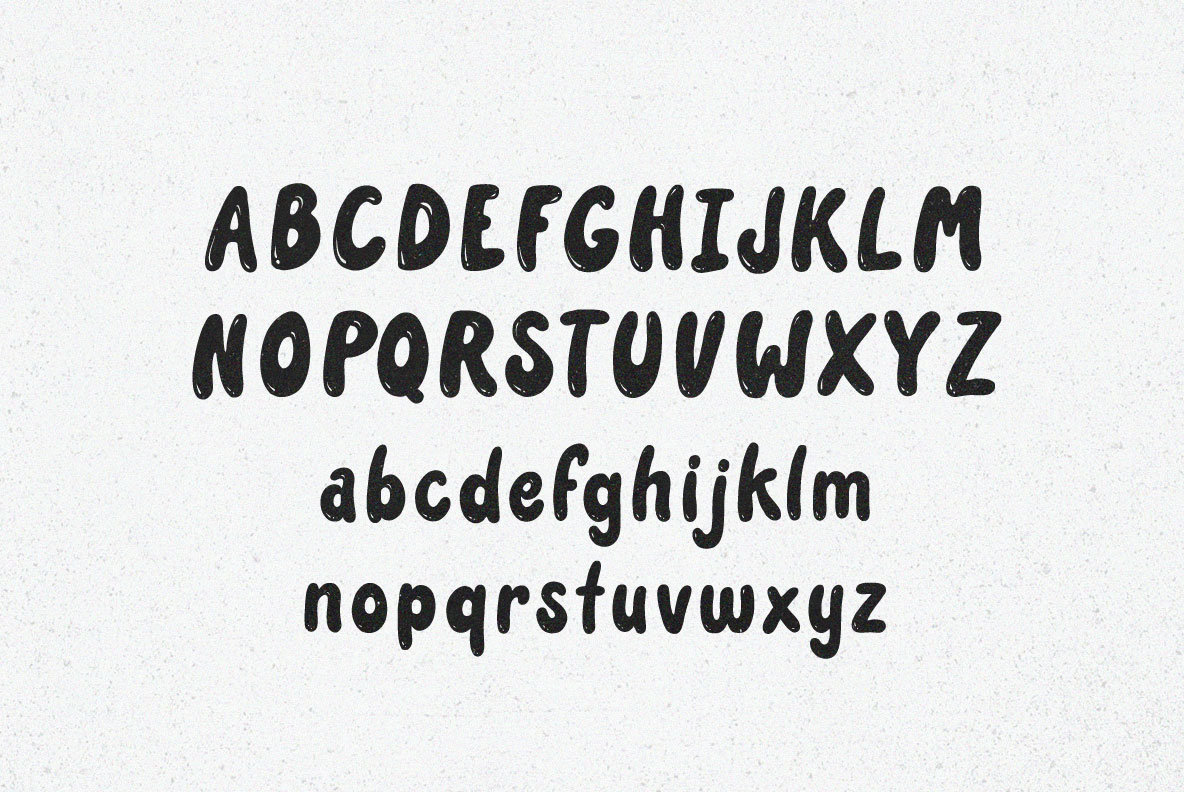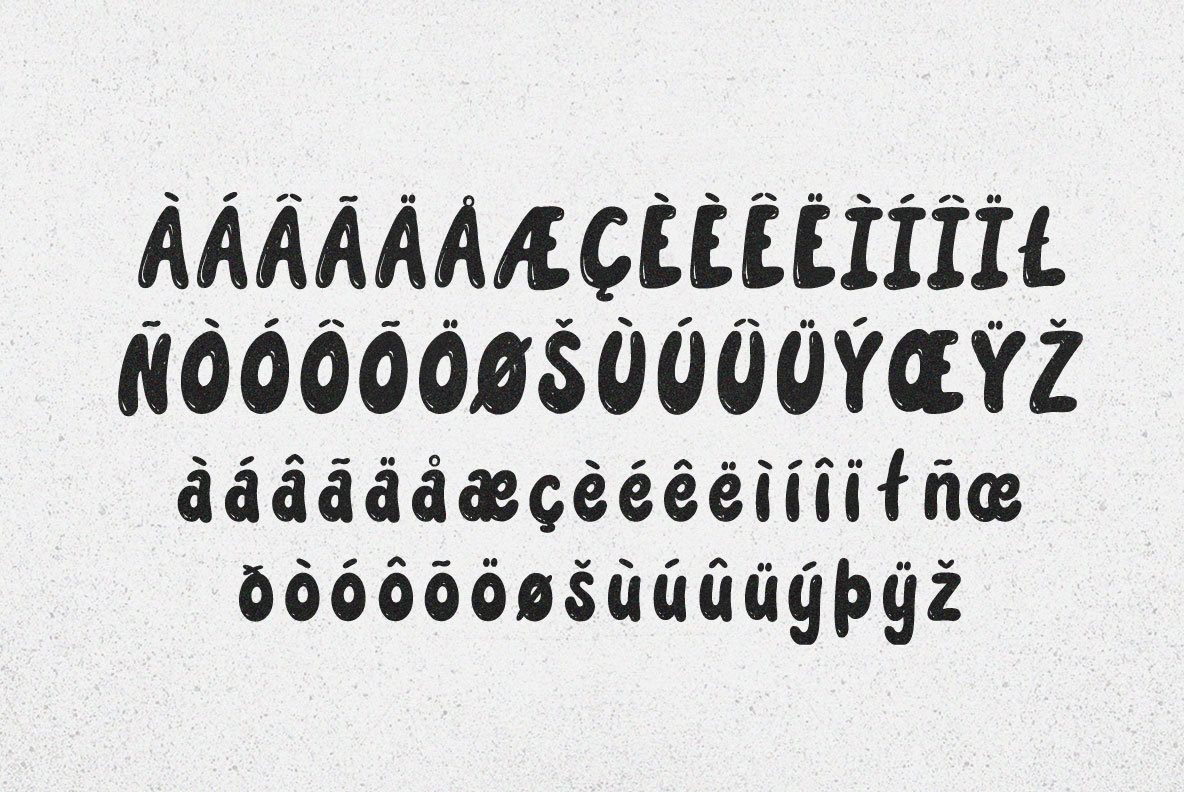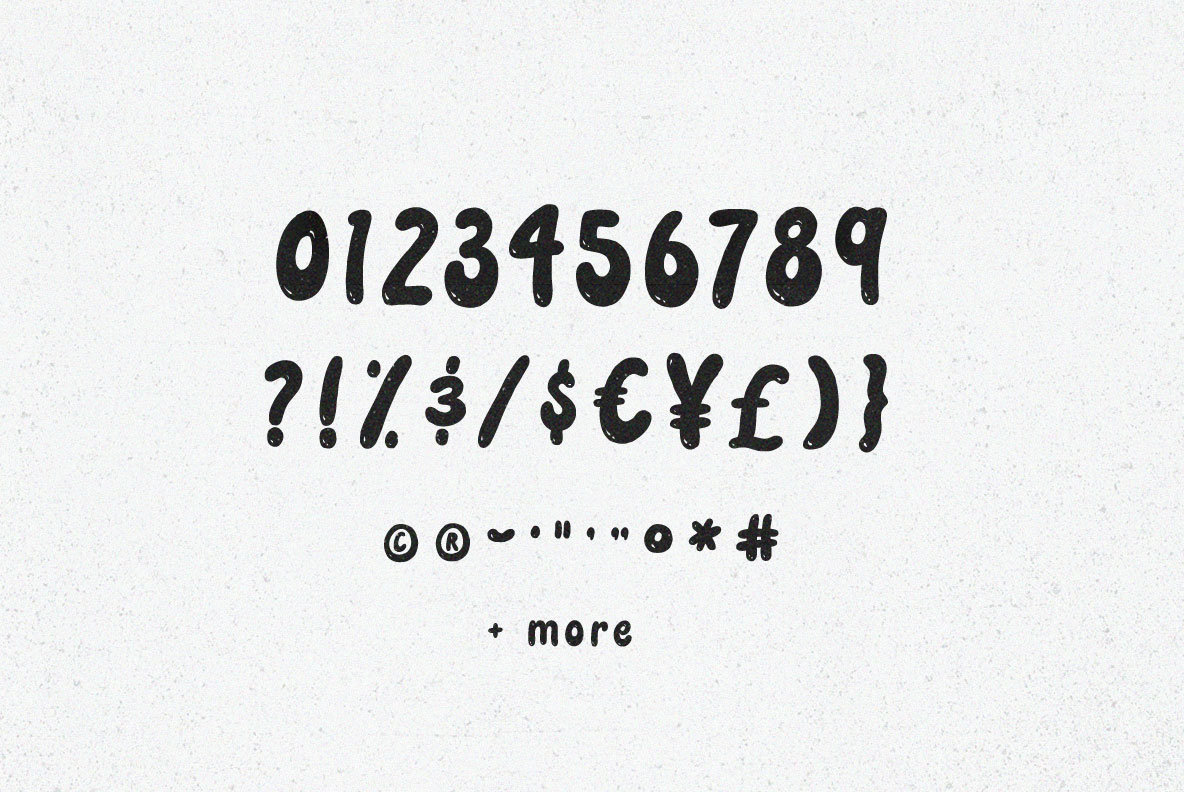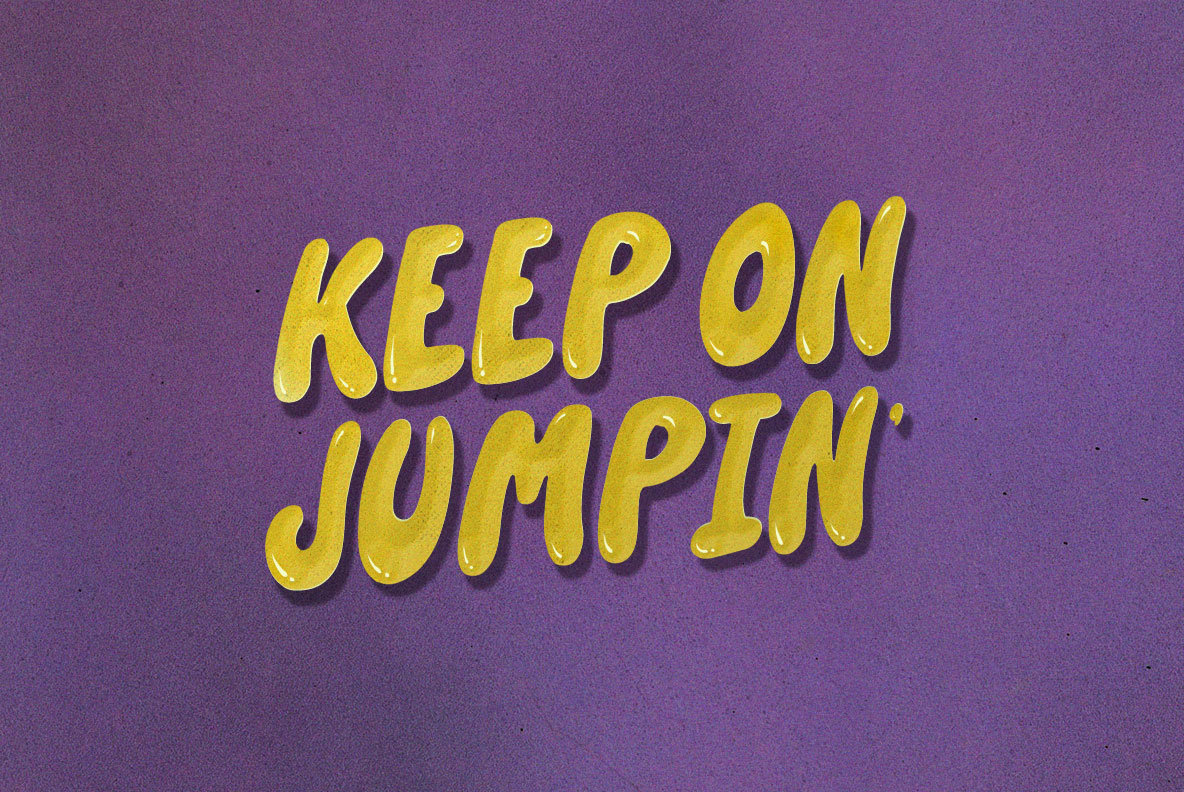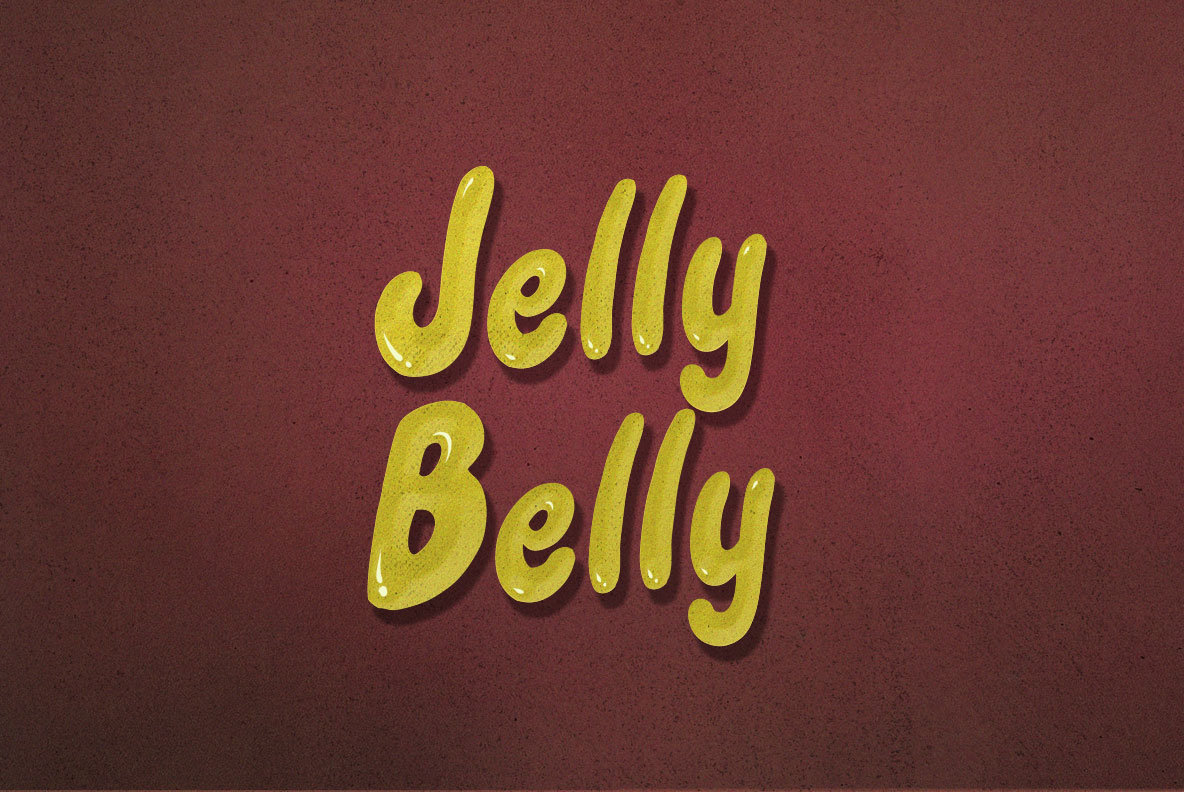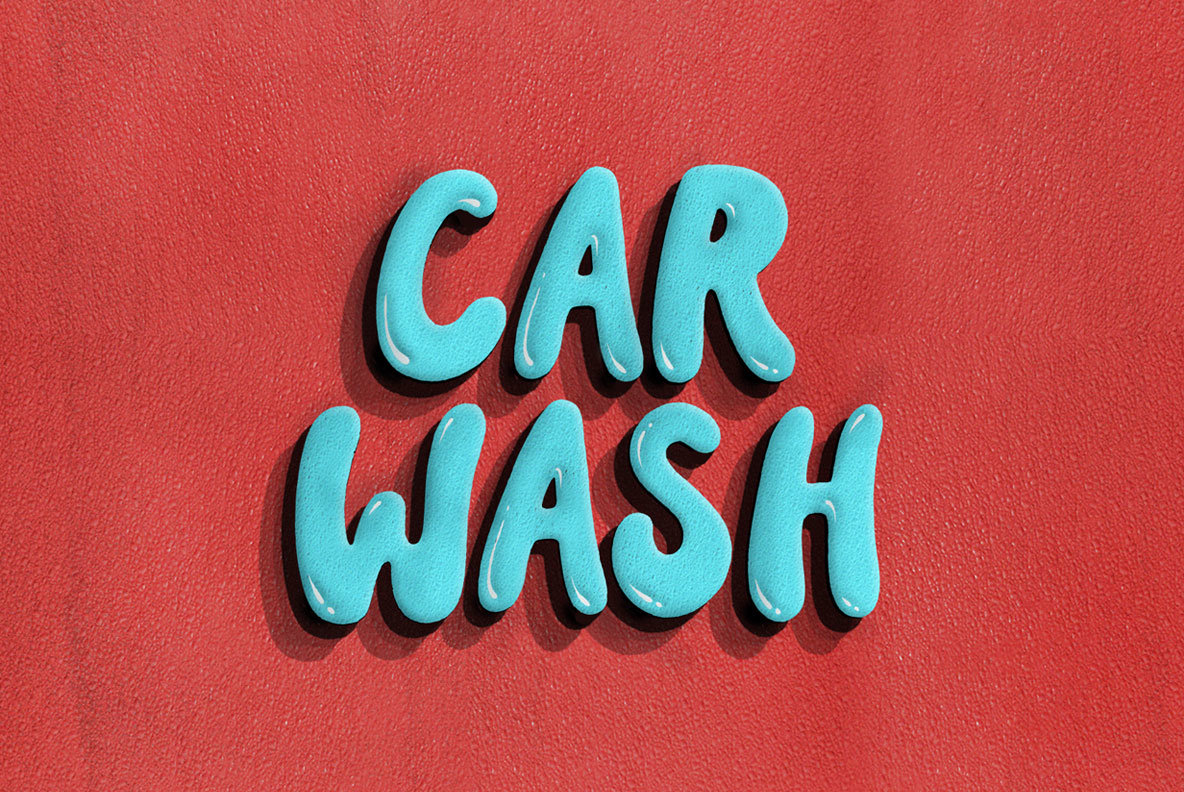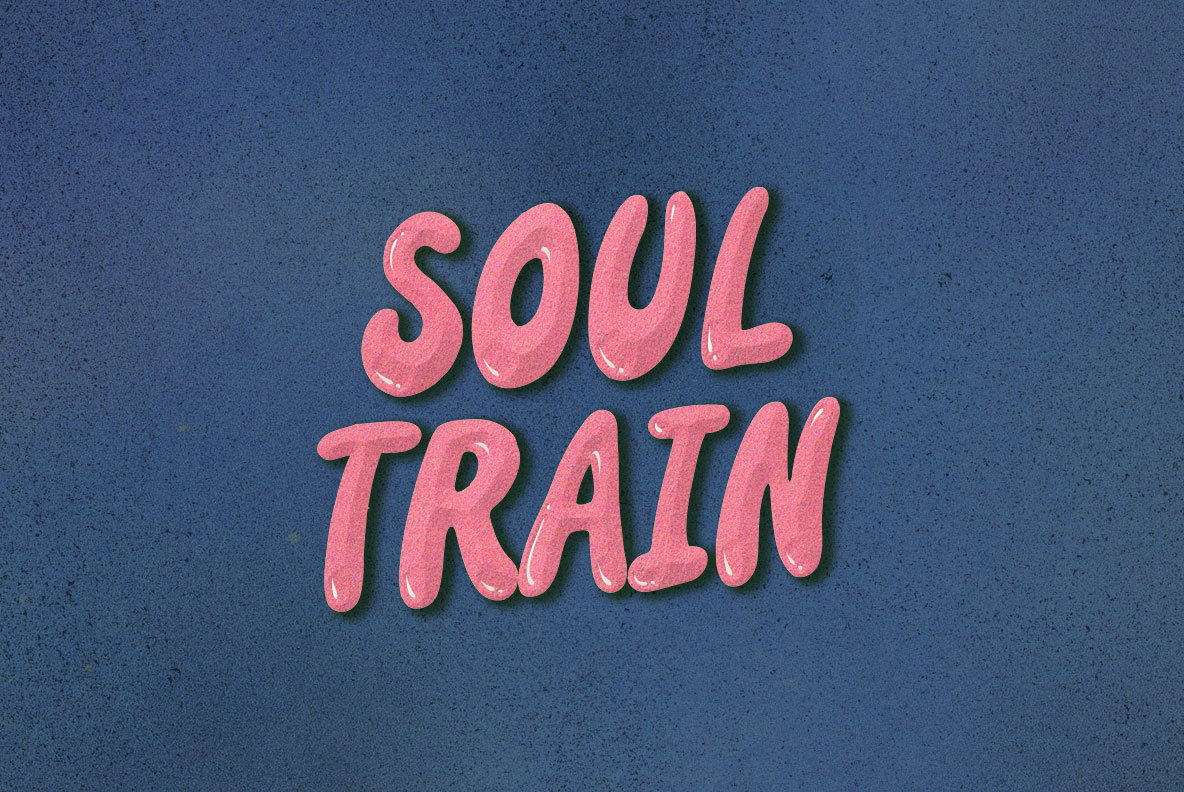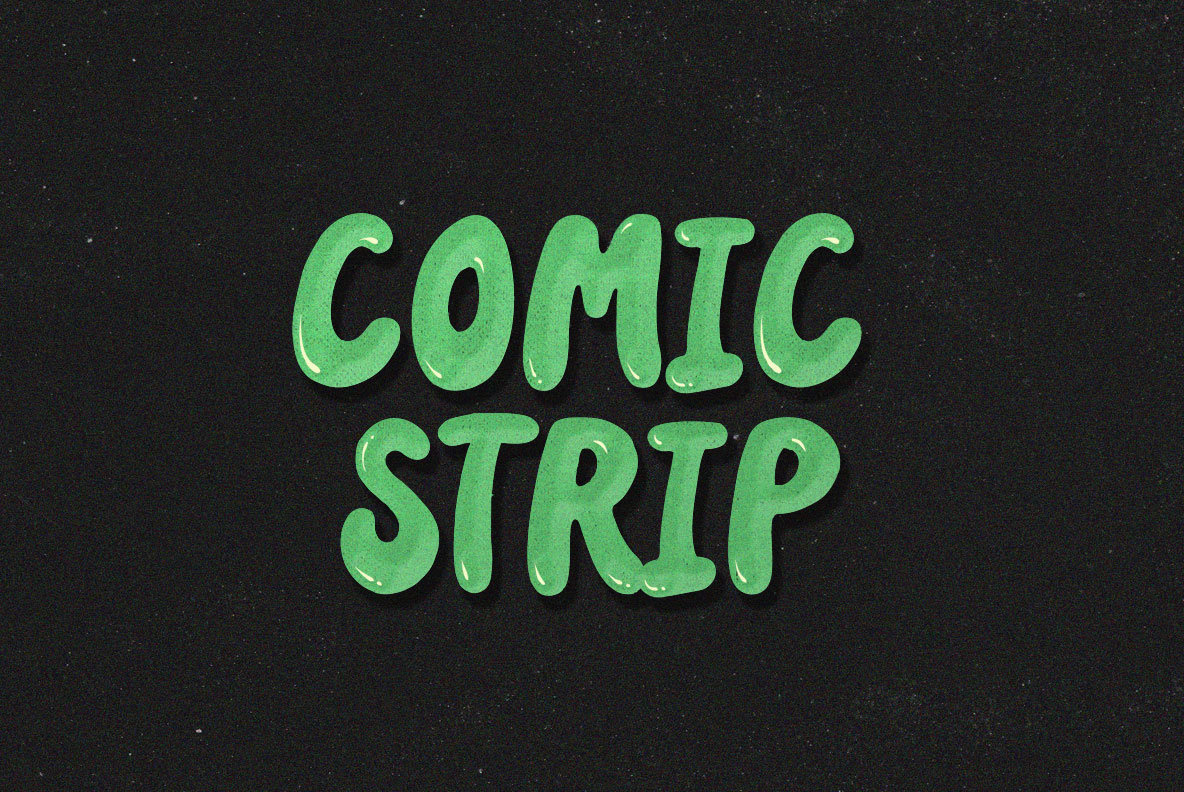
Cherry Funk Font
Cherry Funk
On the one! Moving the backbeat to the downbeat, the sound of soul became funky. Before it was broken in, Cherry Funk changed everything.